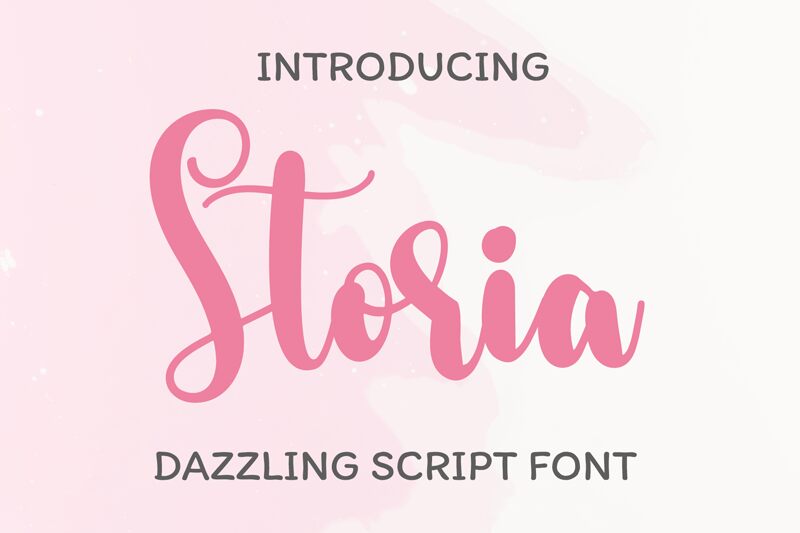
Storia, crafted by Bearytype, is a mesmerizing calligraphy font that blends artistic elegance with modern sophistication. With its semi-bold weight and semi-condensed width, Storia adds an air of refinement to any project it graces. Perfect for wedding invitations, luxury branding, or high-end editorial designs, this font type exudes timeless beauty and evokes a sense of grace. Whether you're designing a captivating logo or creating stunning packaging, Storia will transport your audience to a world where beauty knows no bounds. Embrace the allure of Storia and elevate your creative endeavors to new heights.